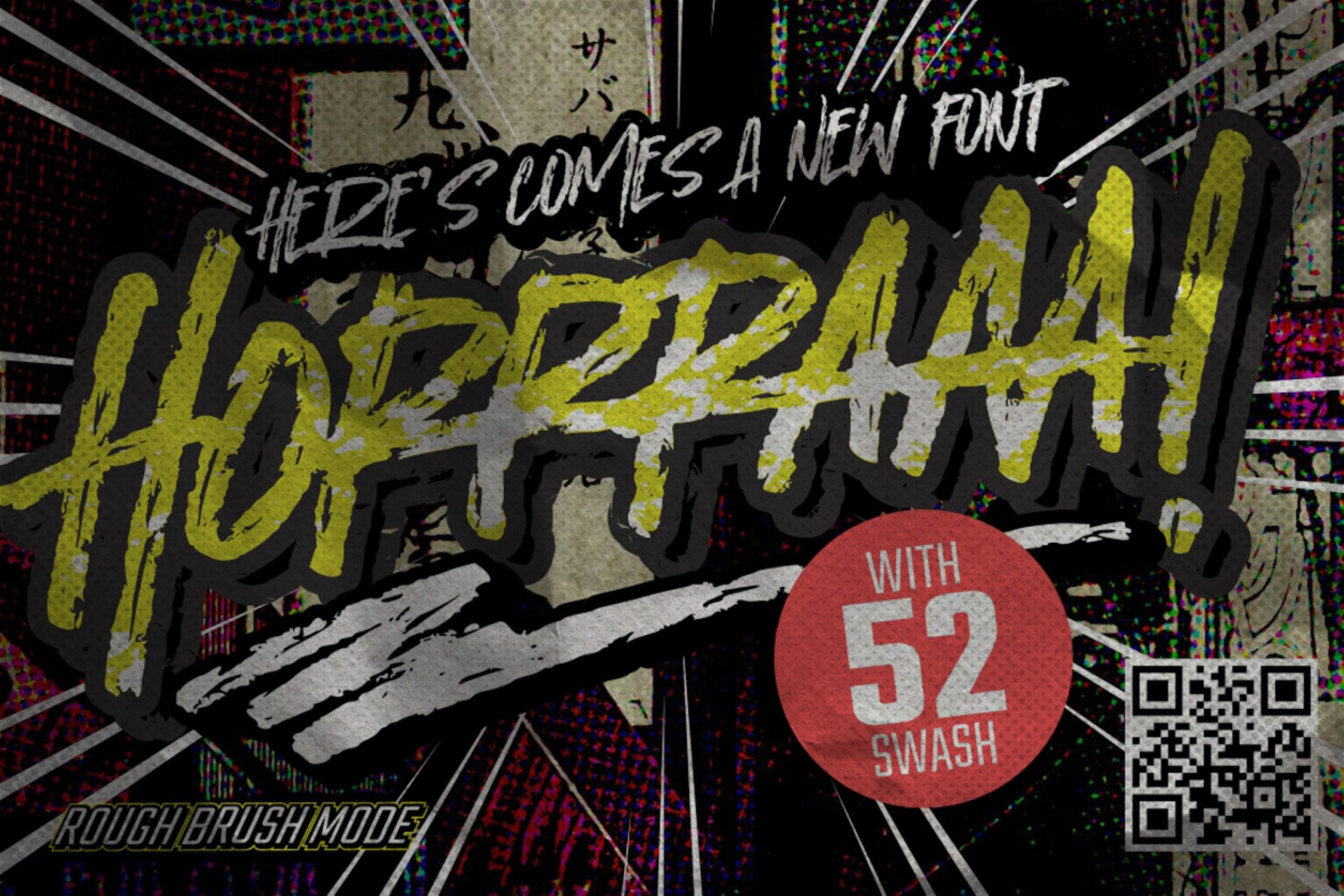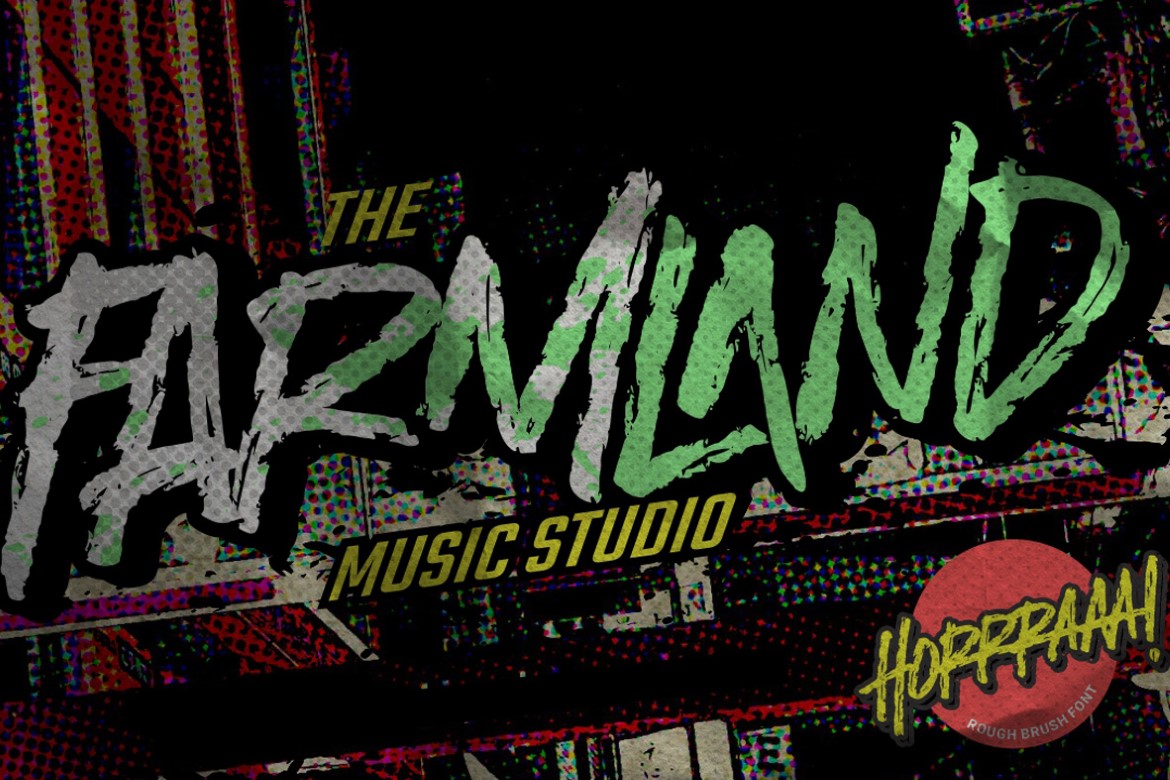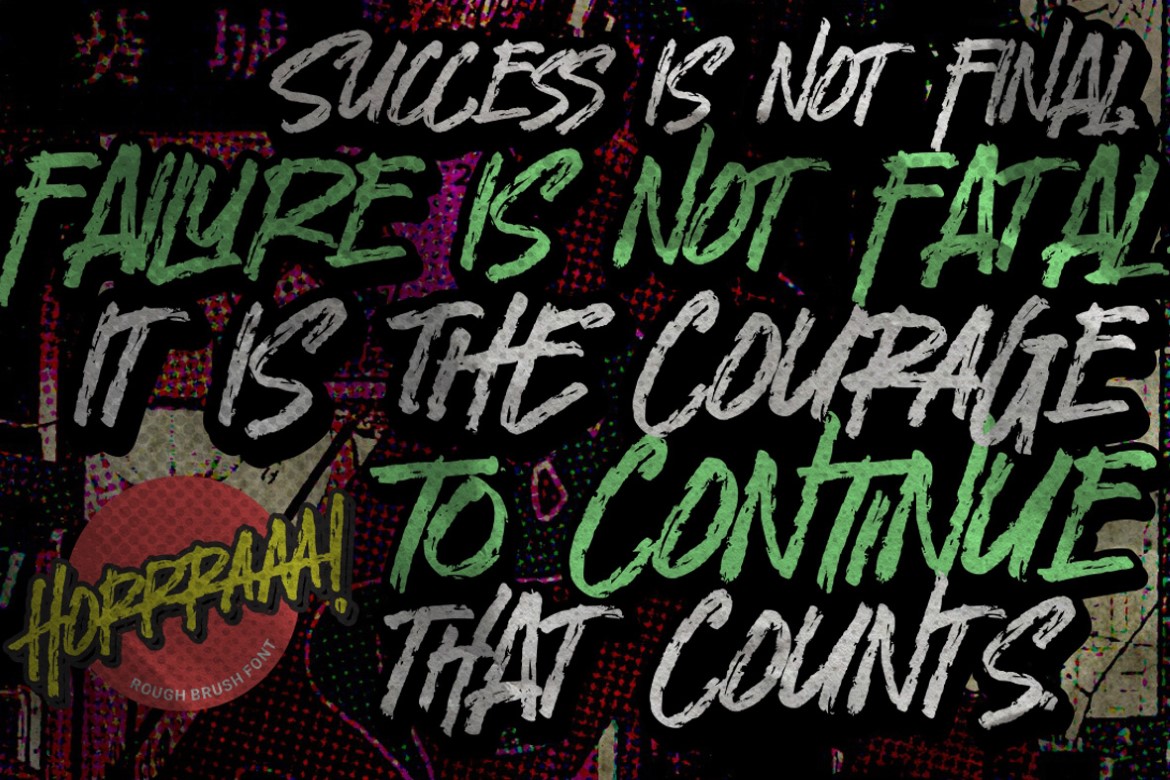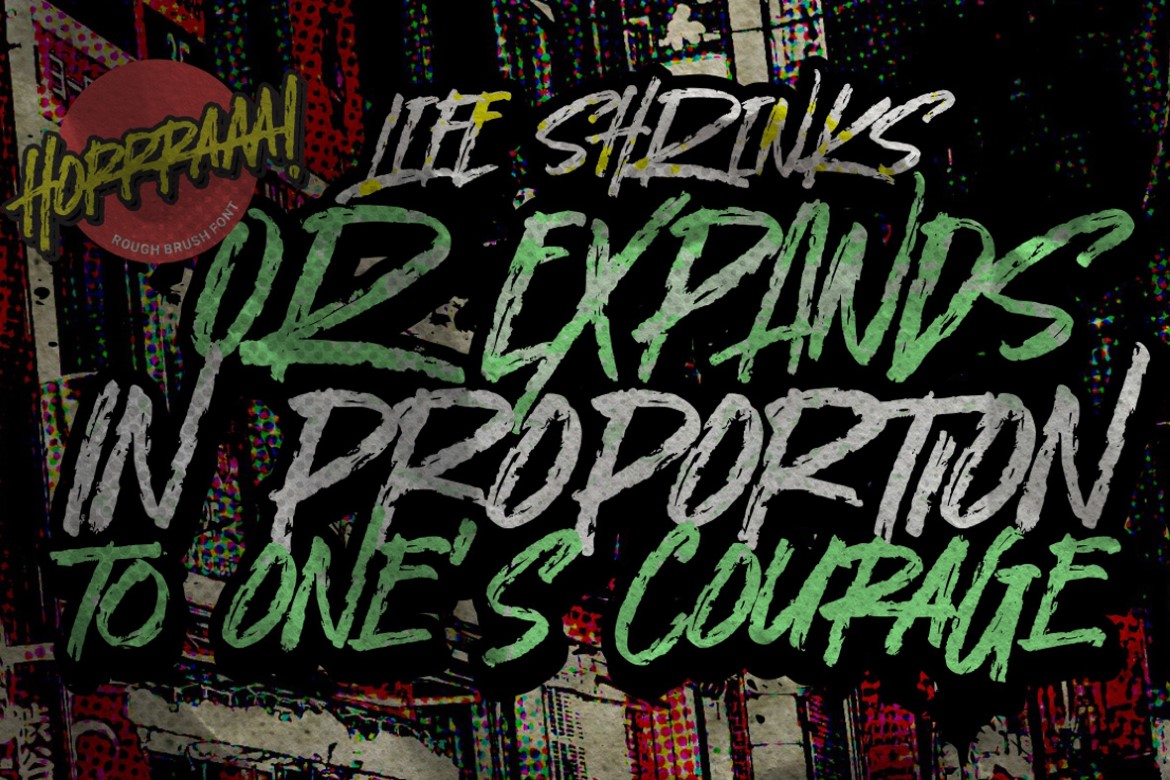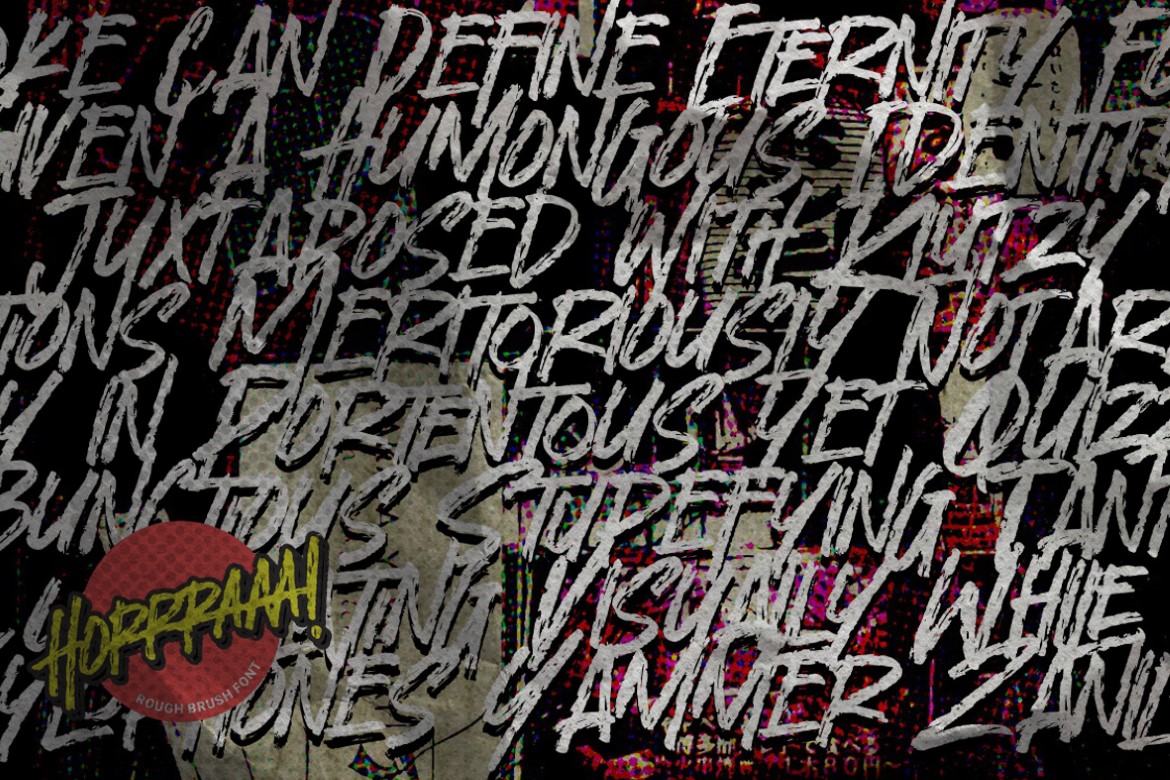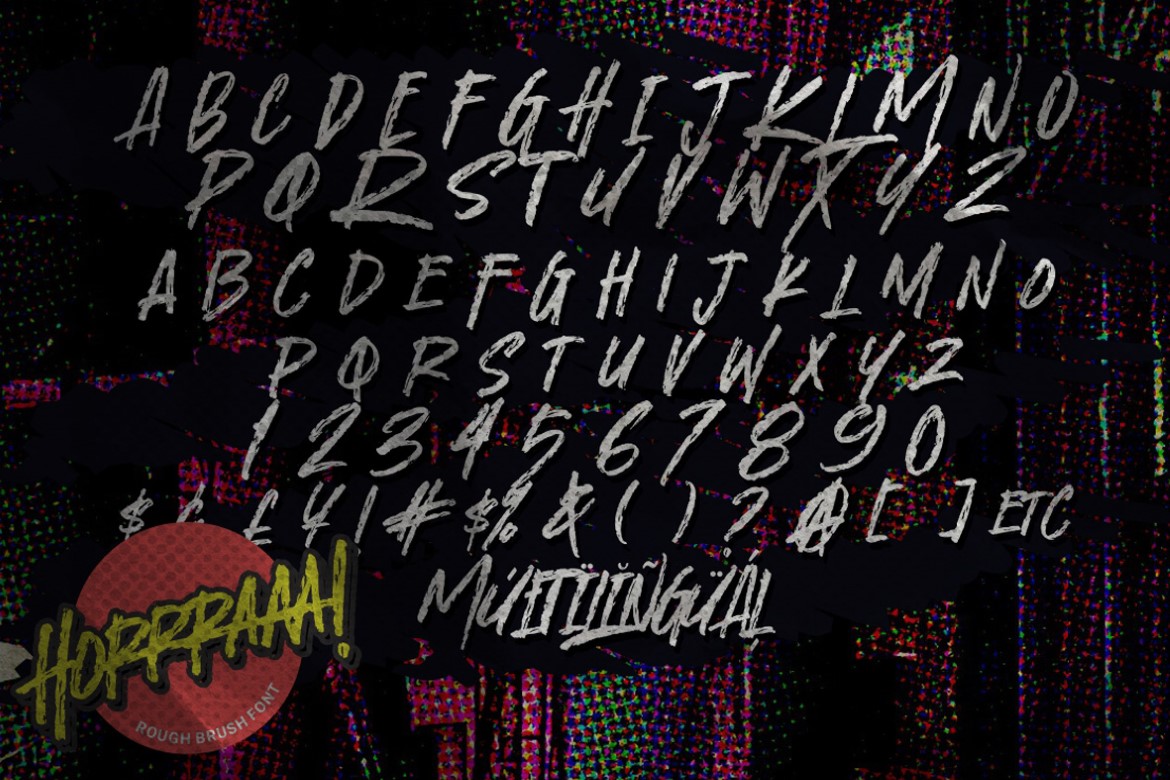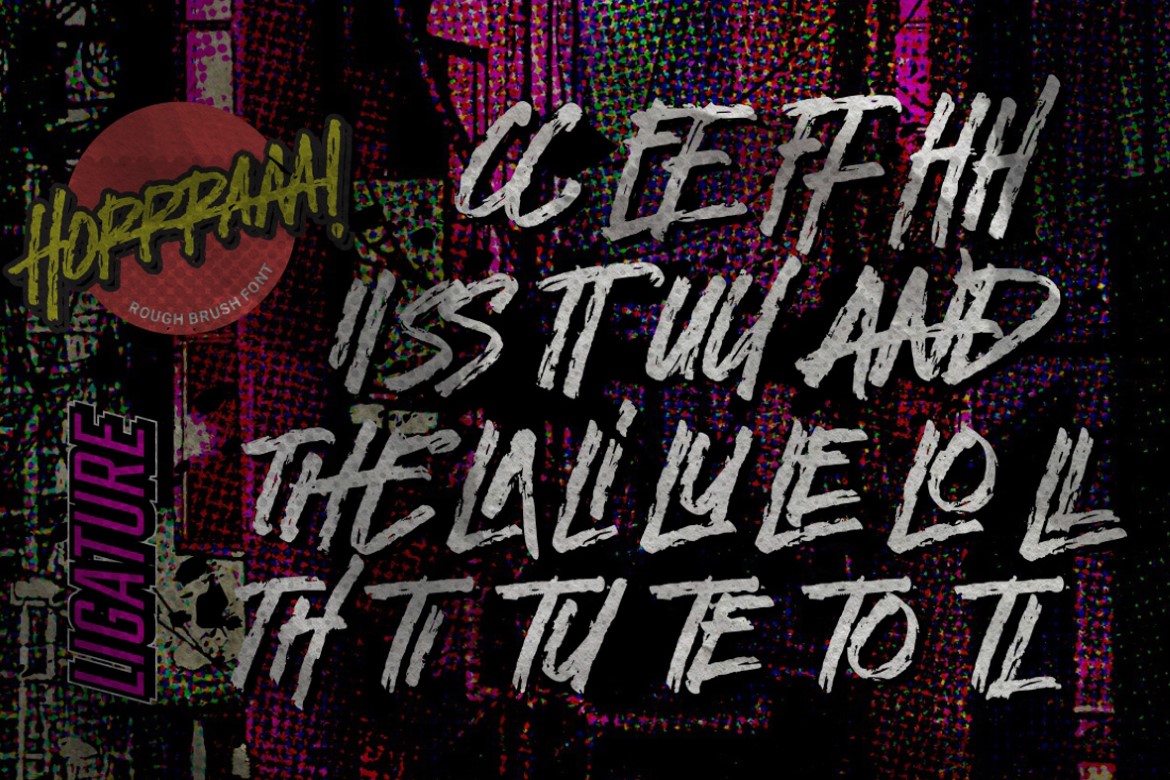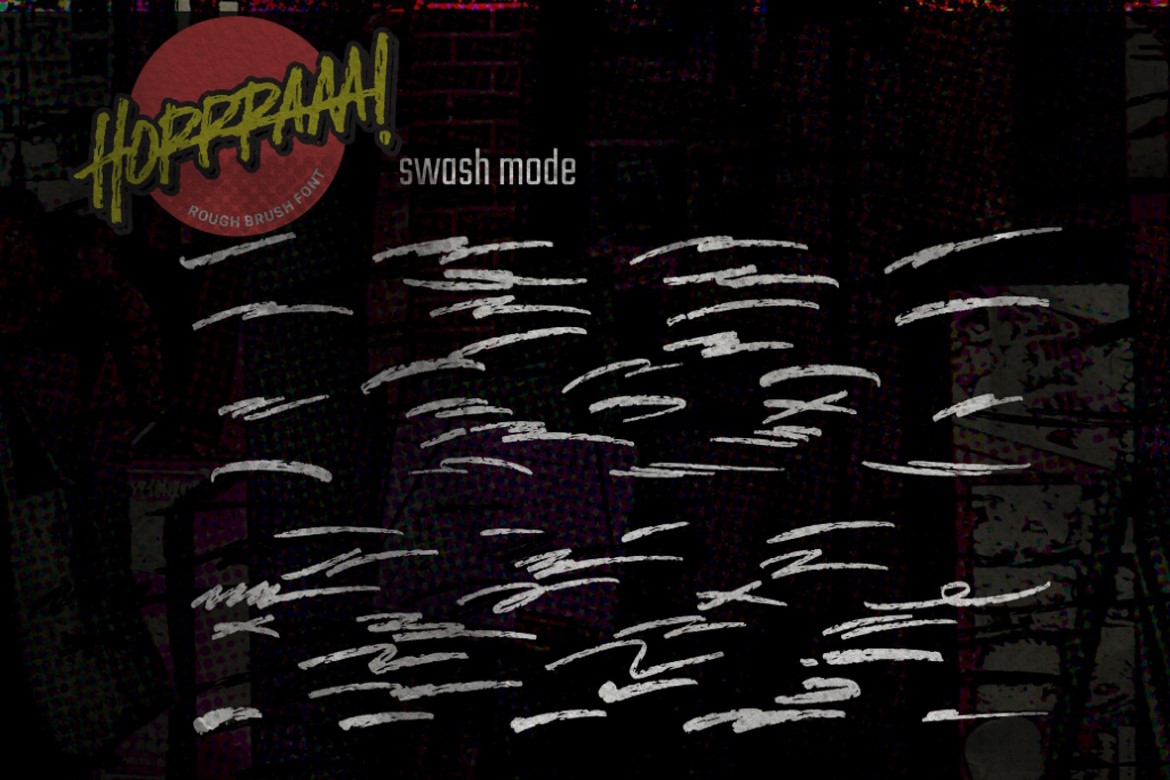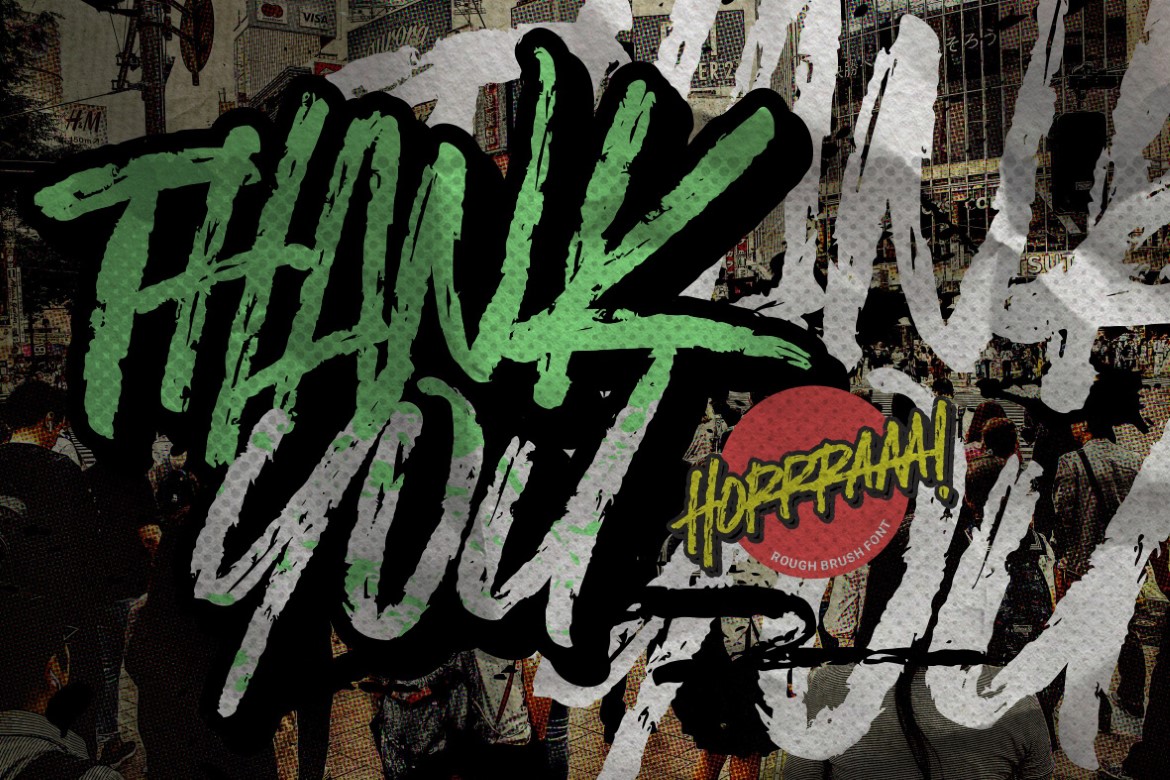
Horrraaa – Rough Brush Mode Font is an Authentic brush Font that is written casually and quickly.
That is why Horrraaa has a authentic, and strong characteristic more natural look.Rough Brush Typeface that is written casually and quickly
Horrraaa Perfect for designs, branding projects, Logo design,Quotes product packaging and another Project that require cool strong brush font.